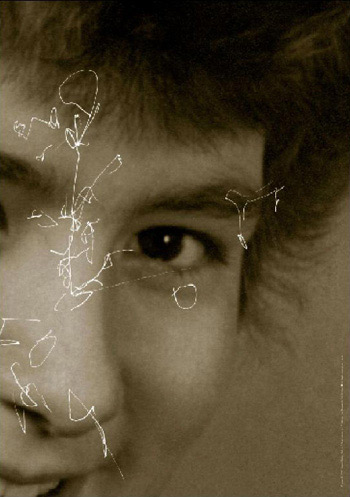
dot-font: Neville Brody Sparks New Life into “Fuse”
The experimental typographic publication “Fuse” is back, after a long hiatus. “Fuse” is a periodical (once quarterly, now “sporadic”) that consists entirely of a set of four or five experimental typefaces by several designers, distributed on a disk (these days, a CD-ROM), plus a printed poster from each designer and usually an accompanying text by series editor Jon Wozencroft. Each issue has a theme, but the designers have complete freedom in how they interpret that theme.
“Fuse” was created almost ten years ago by Jon Wozencroft and Neville Brody for FontShop International, and FontShop published the first seventeen issues. This new issue, “Fuse18,” is distributed by FSI but “produced and published by Neville Brody.” (It’s “available while supplies last for $59” from FontShop, at 888-FF FONTS or through the FontShop website.) Otherwise “Fuse 18” fits neatly into the series: It takes the same radical approach, uses the same simple but effective graphic effects in the five posters, and even comes in the same cleverly folded cardboard box with the big “FUSE” logo. The fonts each have the prefix F (for Fuse), in a neat take-off on the FF prefix that FontShop affixes to its own FontFont line.
The theme of the current issue is “Secrets.” “Fuse” has always stretched the limits of what a font is, just as Neville Brody has stretched the limits of typography and taken type into the realm of art. New fonts and posters (and PDF versions of those posters) were created for this issue by Brody, Jason Bailey, Jake Tilson, Matthew Carter, and Bruce Mau.
F Can We Imagine
“Can we envision 1. a font that asks more questions than it answers 2. a font that has projective memory, that reminds you to remember 3. a font with a limited lifespan 4. a font with an expiry date 5. a font that has gone bad 6. a font without temporal inflection, without the imprint of its time…”
This is the beginning of the text on the poster for Bruce Mau’s “font” F Can We Imagine. I put “font” in quotes because there is, in fact, no digital font by that name on the CD-ROM. There are, instead, two QuickTime audio files, both very short, that play a voice (Mau’s, presumably) asking two questions:
“Can we make a font that has memory?”
“Could you imagine a font that…that has a limited lifespan?”
Bruce Mau’s intriguing F Can We Imagine poster (partially shown here) and “font” ask more questions than they answer.
The idea is all question. Both the “font” and the text on the poster (the poster is entirely text) simply ask question after question about fonts. In a way, this is a pure form of artistic endeavor. The poster is printed in a plain typeface, in a screened-back blue, and the printing is deliberately faded in patches. The questions, written by Bruce Mau with Nancy Nowacek and Kyo Maclear, go on from 1 to 100:
“…91. an action-packed, eye-popping, over-the-top font 92. a glossy font 93. a ‘lite’ font 94. a facelift gone wrong font 95. a fluid font that oozes, bleeds and leaks and weeps 96. a viral font 97. an unstable font, in need of constant intervention to maintain appearances 98. a Chinese torture font, that interminably drip drip drips its meaning onto your forehead 99. a tragic American font of youthful promise and naive exuberance, driven to an abrupt and violent end 100. a font whose uniqueness lies in its program, not merely in its image?”
F Httpwc
Jake Tilson’s font isn’t so much a typeface as a key to unlock the relationship between his poster and a Web site he set up for the purpose. Each character in the font is simply a two-digit number, roughly hand drawn to look like a slightly condensed version of a bold grotesque face like Franklin Gothic. Using the typeface on a page doesn’t give you anything much, except a string of numbers. But add any one of those numbers to the end of the URL at Tilson’s website, and you’ll find yourself navigating to one of fifty-six pages of individual photographs. So each letter corresponds to a specific photo. Twenty of these photos are also on the poster.
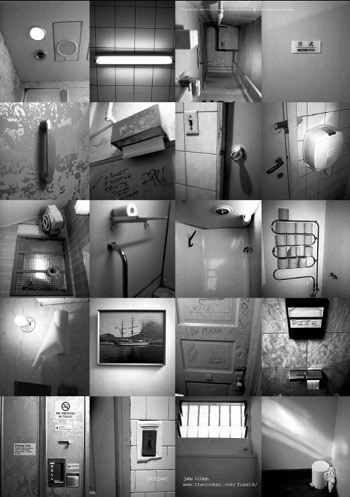
The poster for Jake Tilson’s font F Hhttpwc shows twenty of the photos one can find by visiting his associated website.
And what might these be photos of, you ask? Toilets. WC’s. Men’s rooms, specifically, or at least details of them: partial shots of the fixtures and accoutrements, from cities in Italy, Belgium, Japan, the USA. Men’s rooms from various forms of British transport are also represented, including British Air, British Rail, and my favorite (conceptually, at least), “Jet Foil—English Channel.”
I wouldn’t call these so much secret as unnoticed, the kinds of places we all spend part of our time in but that we don’t much think about when we’re not actually in them. Apart from the comparisons of international toilet hardware, it’s a reminder of the ordinariness of our daily lives.